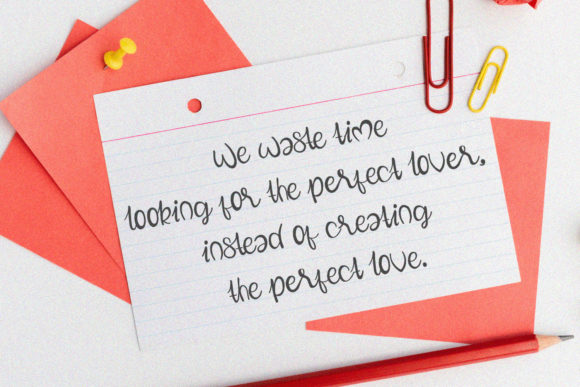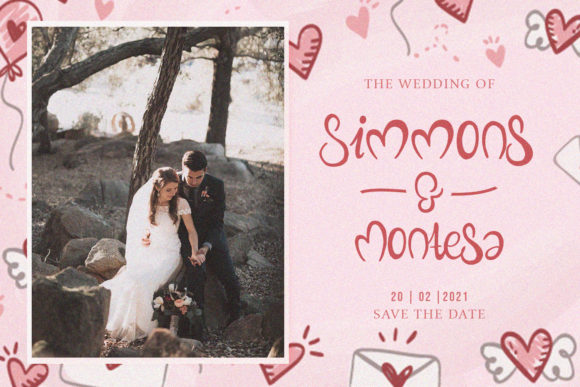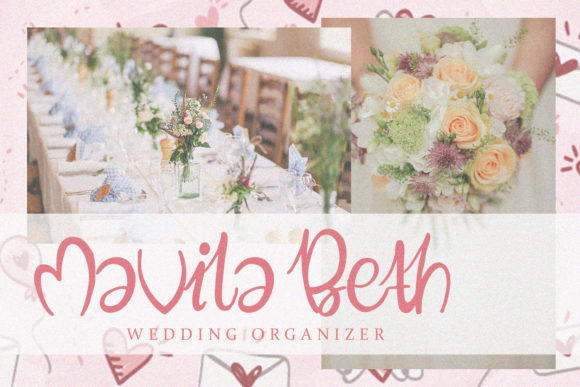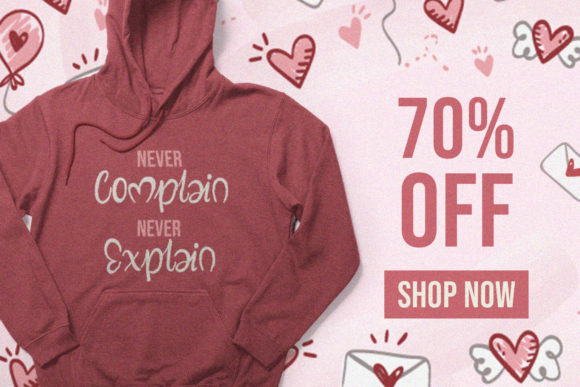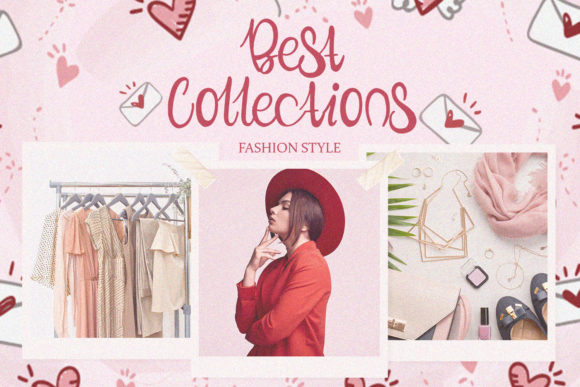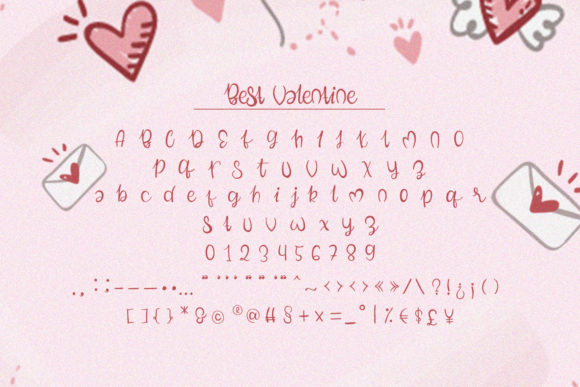
Introduction to Best Valentine Font
There’s something magical about designing a project that captures the essence of love and romance. Whether it’s a wedding invitation or a heartfelt thank you card, the right font can make all the difference. As designers, we know how important it is to choose a font that perfectly conveys the emotions and personality of our creative project.
That’s where the Best Valentine Font comes in – a beautiful, handwritten font that exudes romance and sophistication. With its delicate strokes and elegant flair, this font is a design resource that will elevate any project to new heights. Plus, its transparent background makes it easy to layer with other design elements, giving you endless possibilities for creative expression.
Key Features of Best Valentine Font
- High-quality design resource perfect for creative projects, such as Valentine’s Day cards, invitations, and decorations.
- Transparent background for easy layering and customization in your design project.
- Unique, cursive script design that adds a touch of elegance and romance to your creative project.
- Legible and easy to read, even at smaller font sizes, making it ideal for body text and headings.
- Perfect for designers, artists, and crafters looking for a high-quality, free font to elevate their creative projects.
Honest Review: Best Valentine Font
I recently stumbled upon the Best Valentine Font, and I must say it’s been a delightful addition to my design resource collection. As a designer, I’m always on the lookout for high-quality fonts that can elevate my creative projects.
One of the things that works well with this font is its transparent background option, which makes it incredibly versatile and easy to use. The design is elegant and sophisticated, making it perfect for Valentine’s Day-themed projects, but also suitable for other occasions where a touch of romance is needed.
- ✨ Transparent background option for added versatility
While the Best Valentine Font is a great addition to any design library, there are a few limitations to keep in mind. The font is only available in a limited range of styles, which may not be suitable for designers who require a more extensive range of options.
Overall, I’m impressed with the Best Valentine Font, and I would definitely recommend it to fellow designers who are looking for a high-quality, free download font to add to their design resource collection.
The Best Valentine Font is a high-quality, free download perfect for any creative project. This font features a transparent background, making it ideal for layered designs and overlays.
Tips for Getting the Most Out of the Best Valentine Font
Experiment with different font sizes, colors, and combinations to create unique and creative designs.
Use the Best Valentine Font for Valentine’s Day cards, invitations, and social media posts. It’s also perfect for wedding invitations, anniversaries, and romantic getaways.